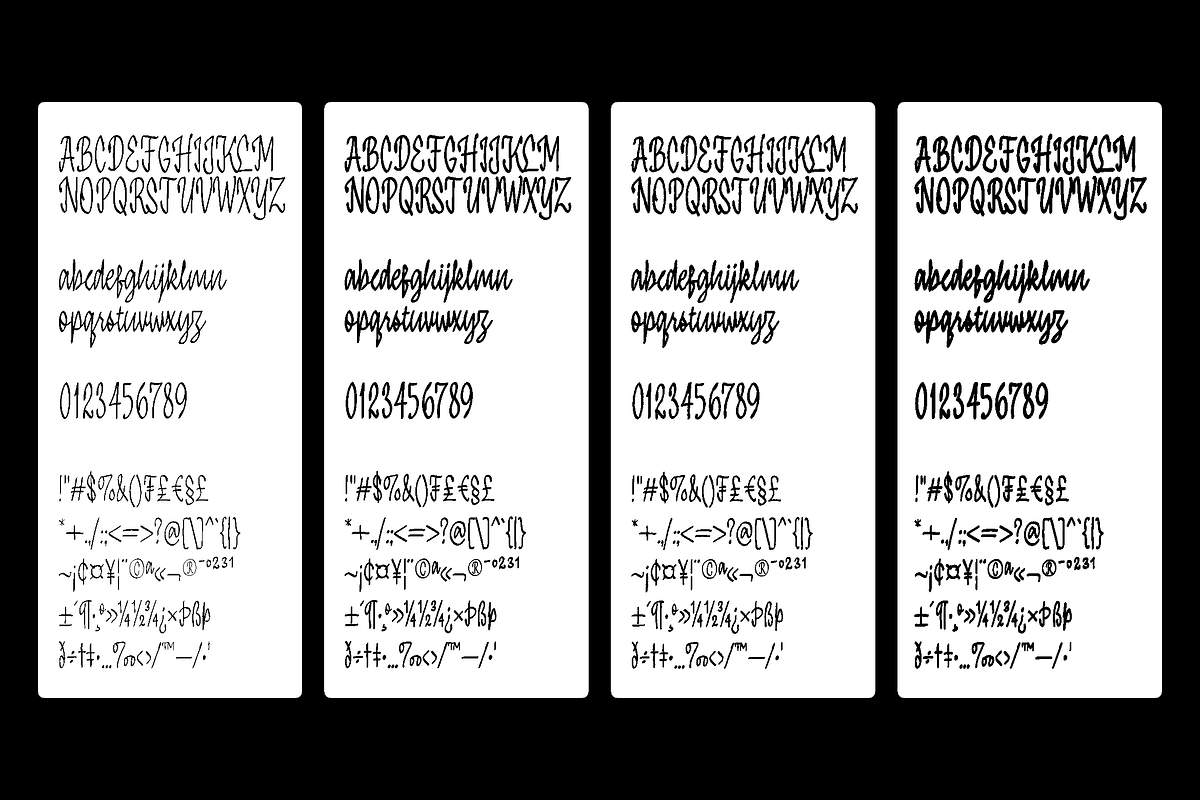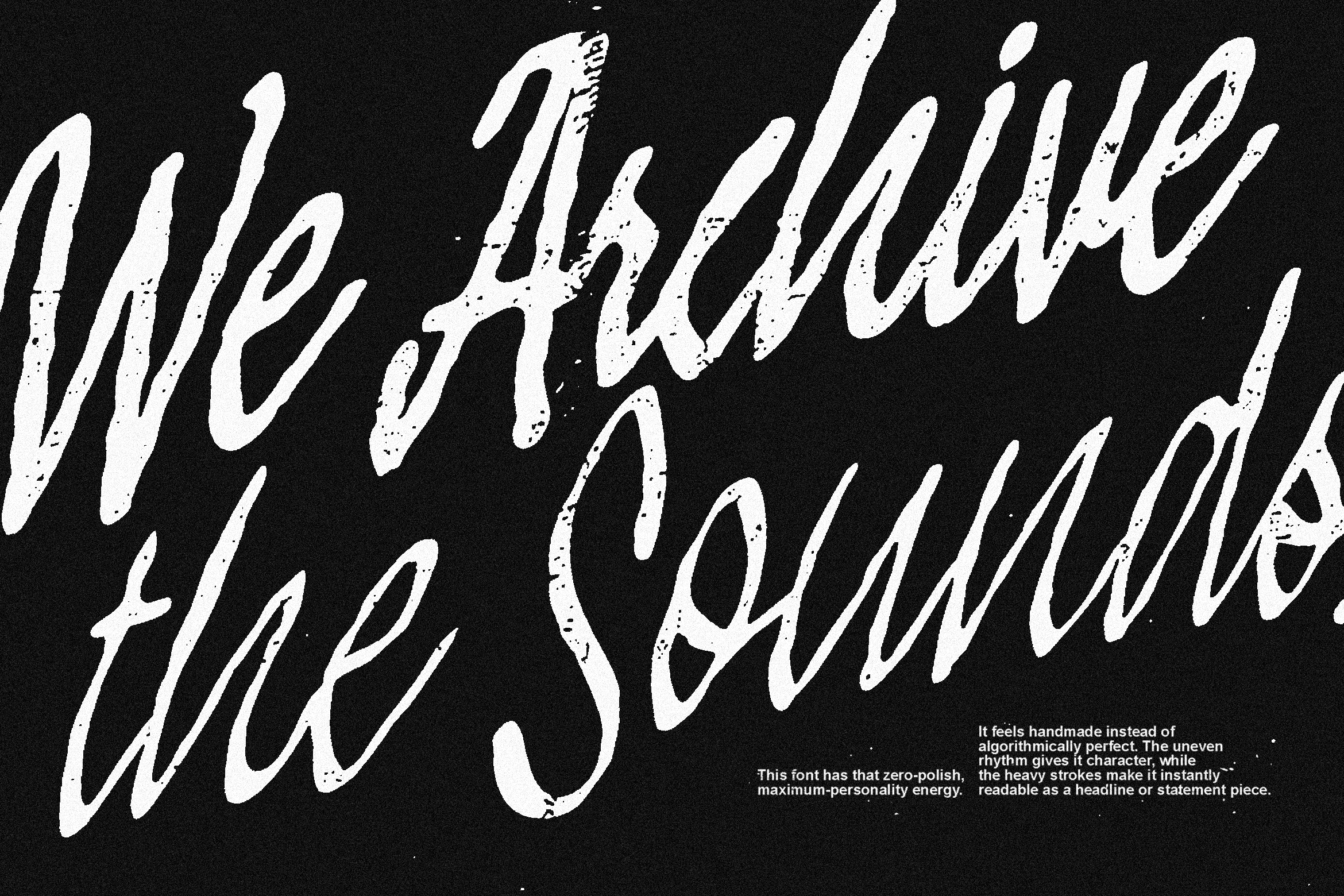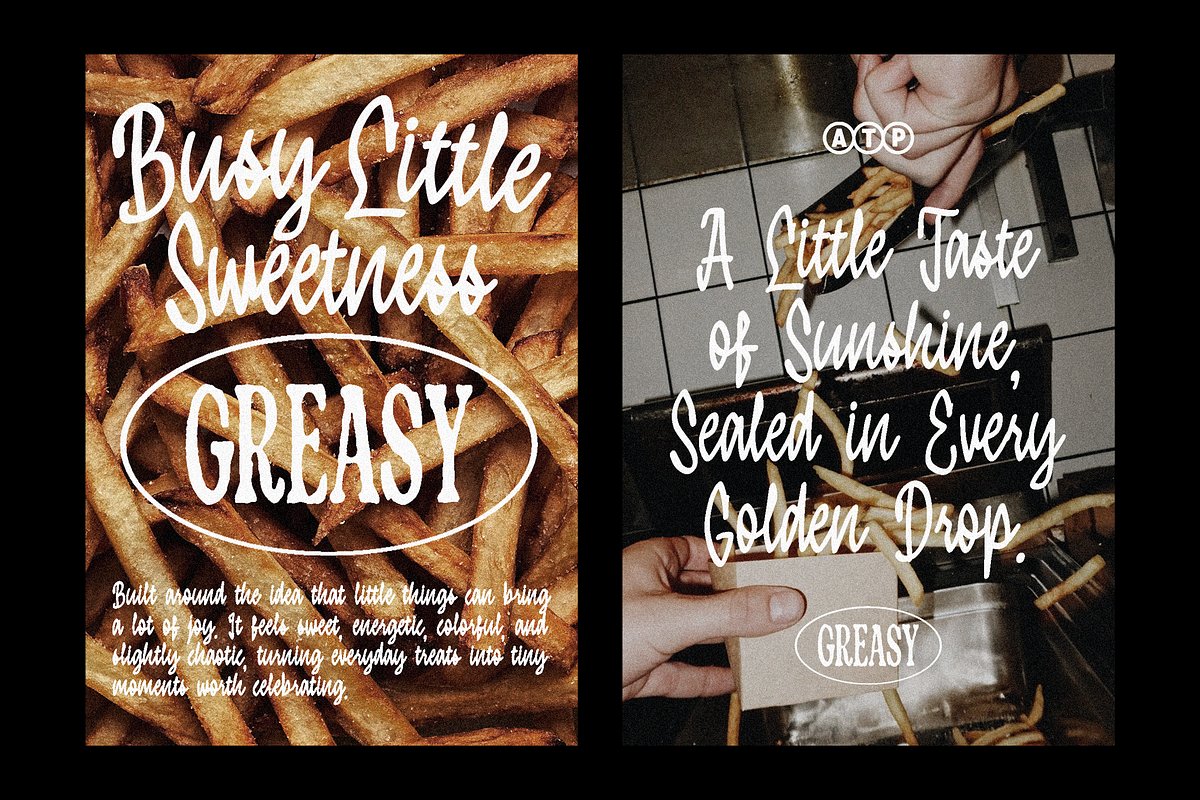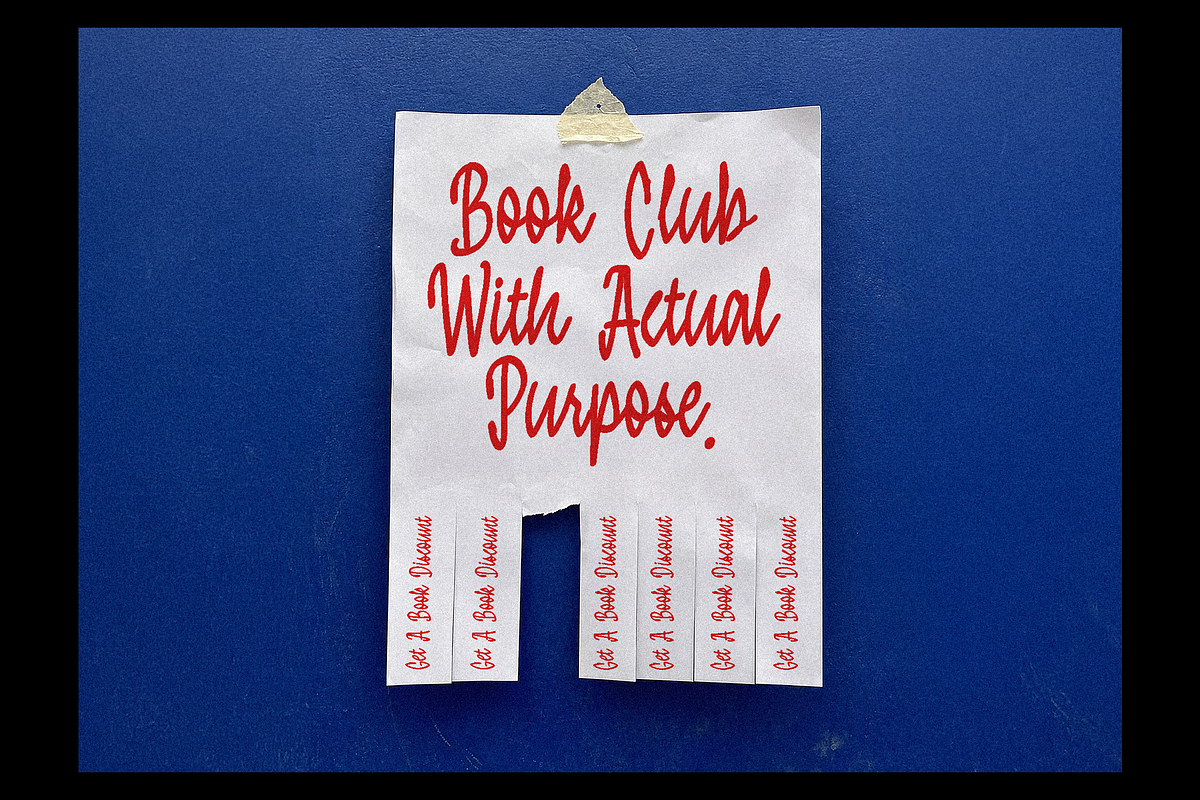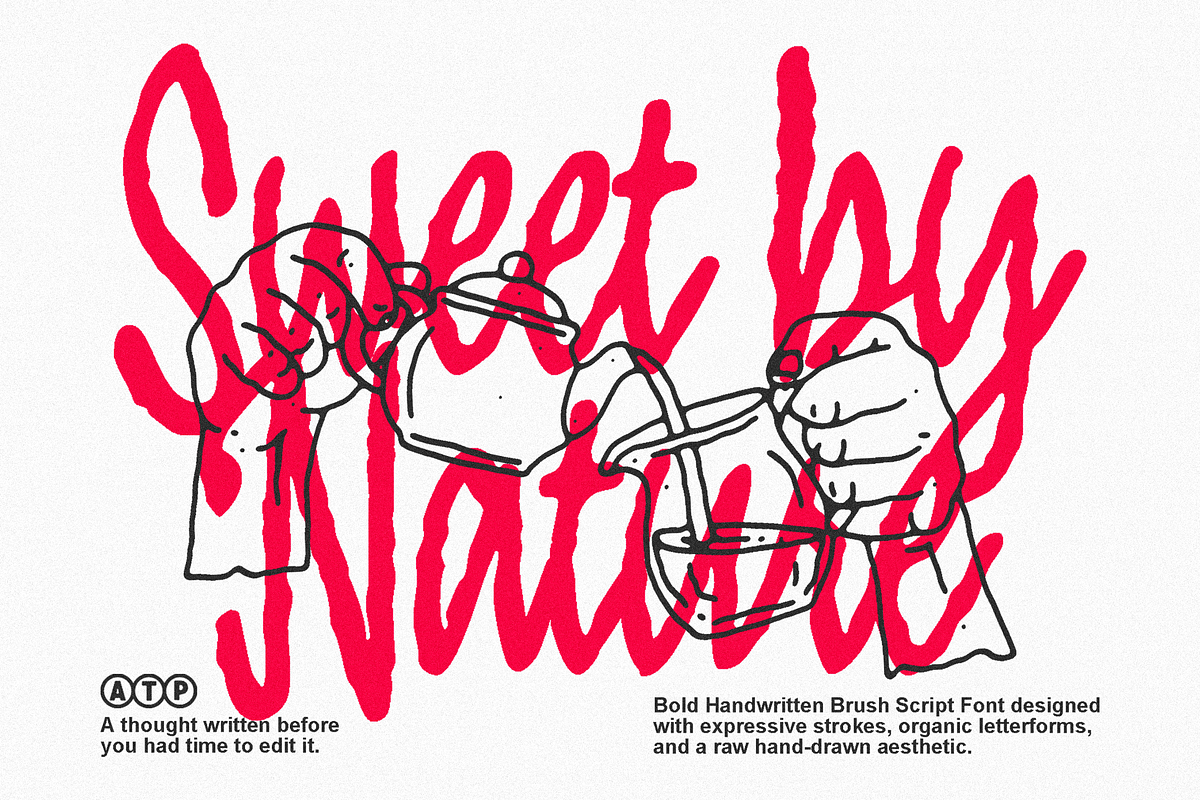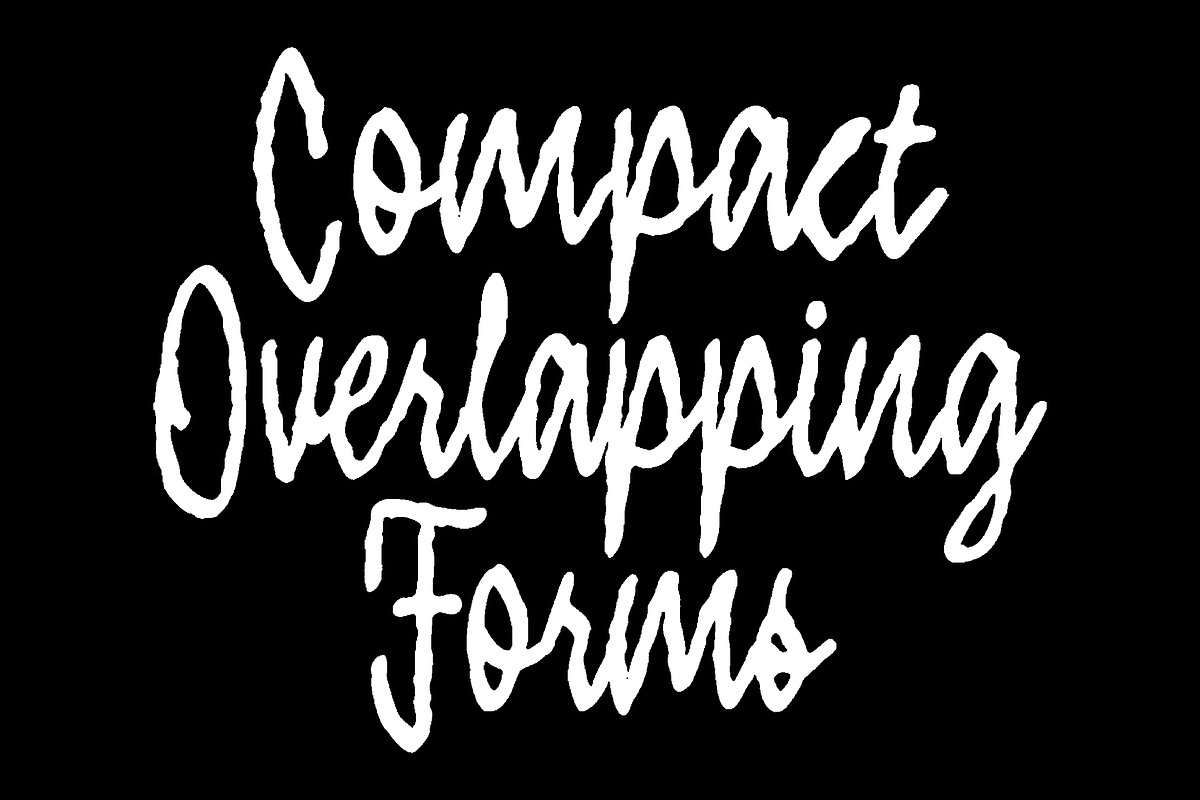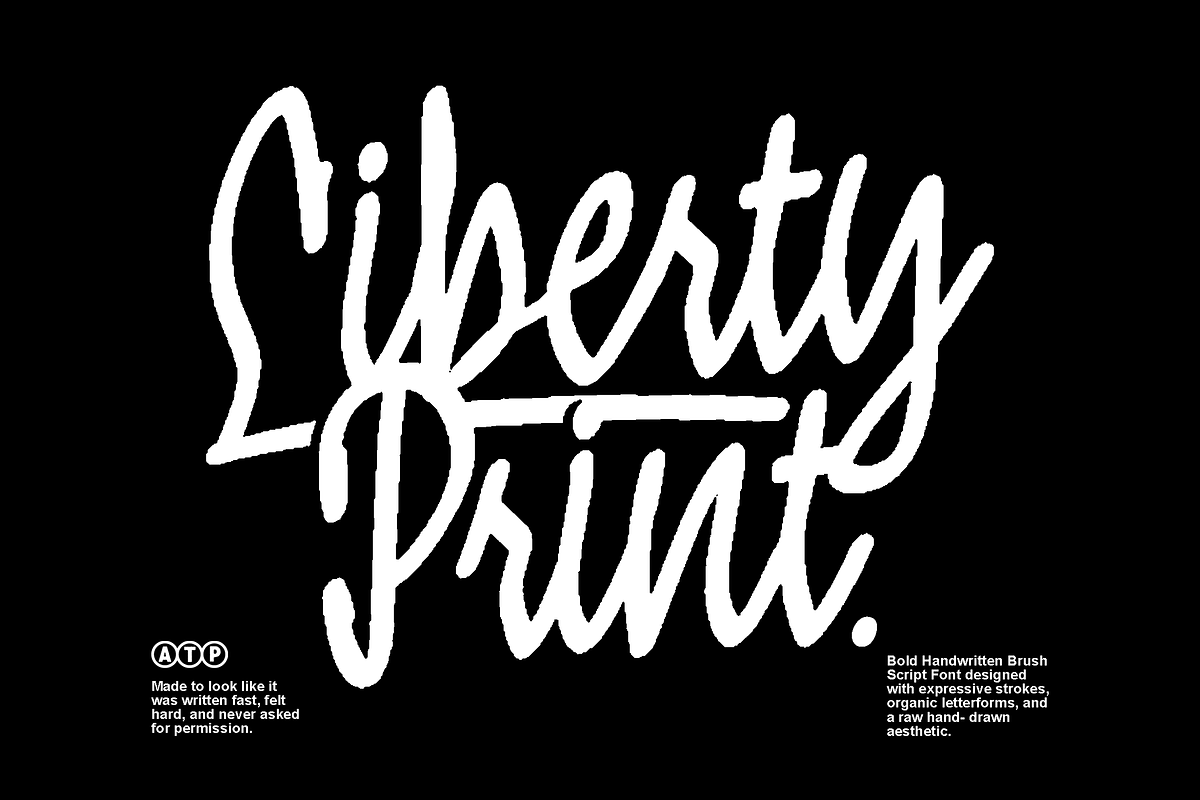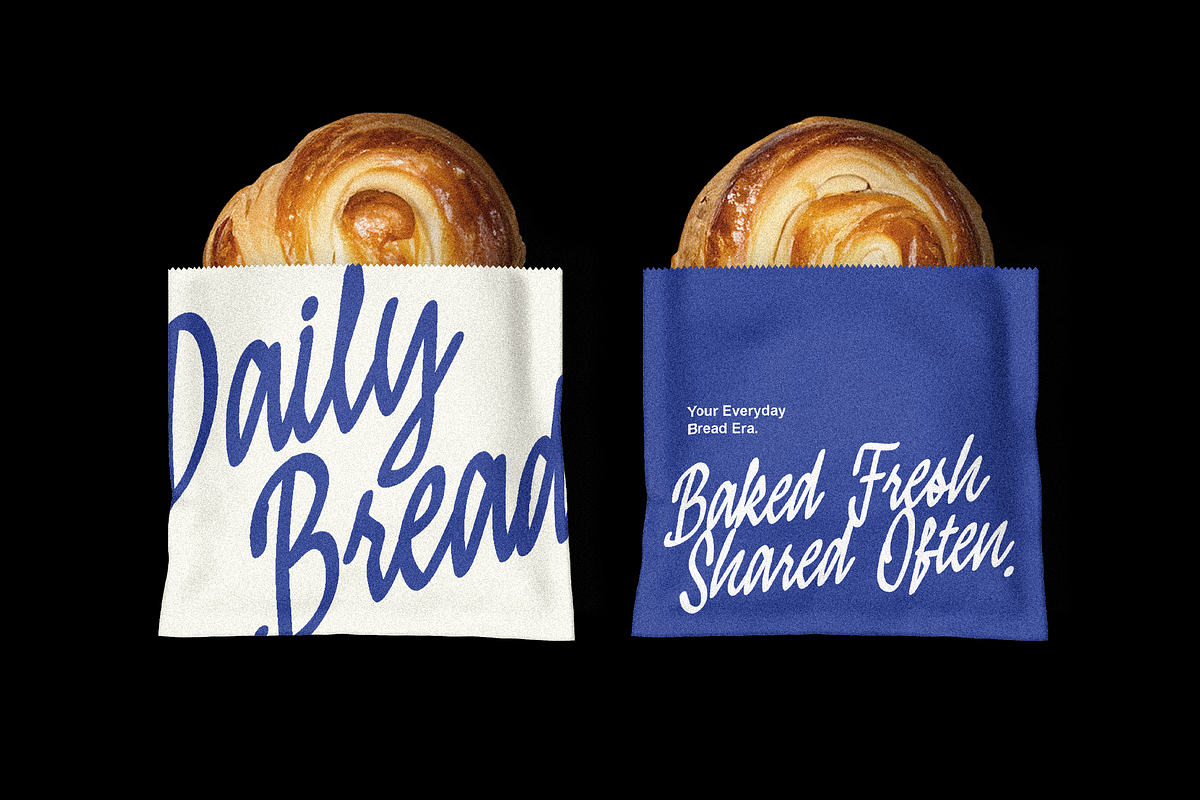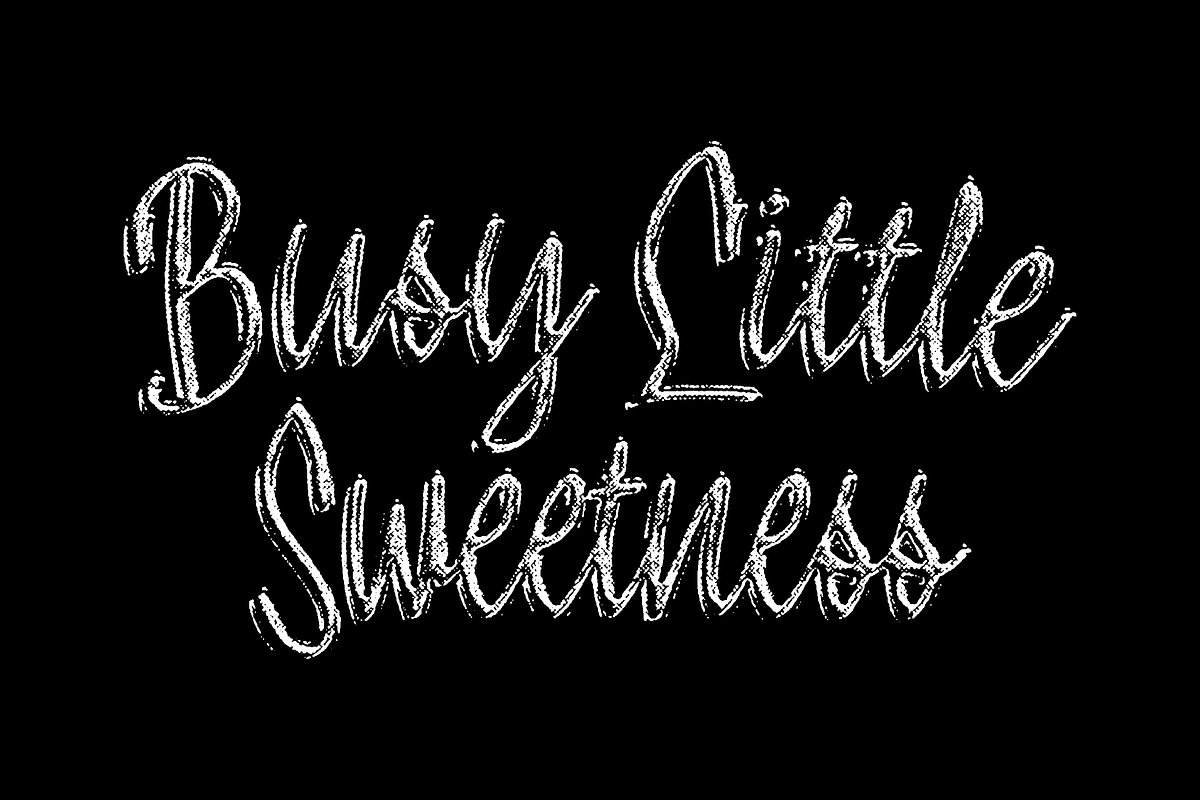
Liberty Print - Display Script Font
This typeface is a bold handwritten brush script with a raw, expressive character. I designed it around the feeling of writing quickly without overthinking every stroke. The result is intentionally imperfect, energetic, and very human.
From a creator’s perspective, the main idea is movement. The letterforms stretch, overlap, bounce, and change direction naturally, creating a strong sense of rhythm across the word. Instead of aiming for perfectly controlled calligraphy, the design keeps the visual tension of a real hand-drawn gesture.
Lowercase
Numerics